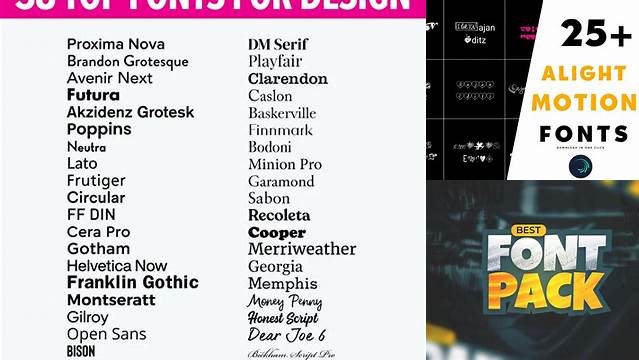
Best Fonts For Edits: Make Your Visuals Pop!
Choosing the right fonts to use for edits can dramatically elevate your creative projects, whether you're designing social media graphics, editing videos, or crafting stunning presentations. Selecting the perfect typeface is key to conveying the right message and capturing your audience's attention. Let's dive into the world of fonts and explore how to pick the best ones for your editing needs.
1. Understanding Font Psychology
Font psychology plays a crucial role in how your audience perceives your message. Different fonts evoke different emotions and associations. For example, serif fonts like Times New Roman often convey a sense of tradition, authority, and formality, making them suitable for serious or professional content. On the other hand, sans-serif fonts like Arial or Helvetica tend to appear modern, clean, and approachable, making them ideal for contemporary designs and digital platforms. Script fonts can add a touch of elegance and creativity, but they should be used sparingly to maintain readability. Decorative fonts are best reserved for headings and accents, as they can be overwhelming in large blocks of text. By understanding these psychological associations, you can strategically choose fonts to use for edits that align with your brand's personality and the overall tone of your project. Consider your target audience and the message you want to convey when making your font selections. Are you aiming for a professional, trustworthy feel? Or do you want to come across as playful and innovative? The right font choice can significantly impact how your message is received and remembered.
2. Serif Fonts for Edits
When it comes to fonts to use for edits, serif fonts bring a touch of classic elegance and readability, particularly in print and larger displays. These fonts, characterized by the small decorative strokes at the end of each letter, evoke a sense of tradition and authority. Think of Times New Roman or Garamond – they're timeless for a reason. For editing projects that require a professional and trustworthy feel, such as formal documents or sophisticated branding, serif fonts can be an excellent choice. Their inherent readability makes them ideal for longer text blocks, ensuring that your audience can easily digest your message. However, it's worth noting that serif fonts can sometimes appear cluttered on smaller screens or in digital environments, so consider using them judiciously in those contexts. Experiment with different serif fonts to find the one that best matches your project's aesthetic and target audience. Whether you're aiming for a classic, refined look or a more contemporary twist, there's a serif font out there that can help you achieve your vision. By understanding the nuances of serif fonts, you can confidently incorporate them into your editing workflow and create visually stunning and impactful designs.
3. Sans-Serif Fonts for Edits
For a modern and clean aesthetic, sans-serif fonts are often the go-to choice when considering fonts to use for edits. Unlike their serif counterparts, sans-serif fonts lack the small decorative strokes, resulting in a more minimalist and streamlined appearance. This makes them incredibly versatile and well-suited for a wide range of editing projects, especially those intended for digital platforms. Fonts like Arial, Helvetica, and Open Sans are popular choices due to their readability and contemporary feel. They work exceptionally well for website body text, app interfaces, and social media graphics, where clarity and visual appeal are paramount. Sans-serif fonts also tend to scale well, maintaining their legibility even at smaller sizes. This makes them ideal for responsive designs that need to adapt to various screen sizes. When selecting a sans-serif font for your edits, consider the overall tone and style you want to convey. A bolder sans-serif font can project confidence and strength, while a lighter weight can create a more delicate and airy feel. By carefully choosing the right sans-serif font, you can enhance the visual impact of your edits and ensure that your message is communicated effectively.
4. Script Fonts for Edits
If you're looking to add a touch of elegance and personality to your editing projects, script fonts can be a fantastic choice when considering fonts to use for edits. These fonts mimic the flowing strokes of handwriting, lending a unique and artistic flair to your designs. From formal calligraphy to playful brush scripts, there's a wide variety of script fonts to choose from, each with its own distinct character. However, it's important to use script fonts sparingly and strategically, as they can sometimes be difficult to read in large blocks of text. Reserve them for headings, logos, or short phrases where you want to make a statement. When selecting a script font, consider the overall tone and style of your project. A formal script font like Edwardian Script can be perfect for wedding invitations or elegant branding, while a more casual brush script can add a playful touch to social media graphics or blog headers. Always prioritize readability and ensure that your script font complements the other fonts and design elements in your project. By using script fonts thoughtfully, you can elevate your edits and create visually stunning and memorable designs.
5. Decorative Fonts for Edits
When you need to make a bold statement and grab attention, decorative fonts are your secret weapon when thinking about fonts to use for edits. These fonts are designed to be eye-catching and unique, often featuring unusual shapes, intricate details, or whimsical embellishments. While they're not typically suitable for body text due to their potential impact on readability, decorative fonts can be incredibly effective for headings, logos, and other design elements where you want to create a strong visual impact. Think of movie posters, event flyers, or branding materials that need to stand out from the crowd. When using decorative fonts, it's important to exercise restraint and ensure that they complement the overall design aesthetic. Too many decorative fonts can create a cluttered and overwhelming look. Instead, choose one or two decorative fonts that align with your brand's personality and use them strategically to highlight key messages. Experiment with different styles and combinations to find the perfect balance between visual appeal and readability. By mastering the art of using decorative fonts, you can add a touch of creativity and excitement to your edits, making them truly unforgettable.
6. Pairing Fonts Effectively
One of the key skills in design is pairing fonts effectively when considering fonts to use for edits. Combining different fonts can create visual interest and hierarchy, but it's important to do it thoughtfully. A good rule of thumb is to choose fonts that complement each other without being too similar. For example, pairing a serif font for headings with a sans-serif font for body text can create a balanced and readable design. Avoid using two fonts that are too similar, as this can create a sense of visual dissonance. Instead, look for fonts that have contrasting characteristics, such as different weights, styles, or x-heights. When pairing fonts, consider the overall tone and style of your project. A formal design might call for a classic serif and a clean sans-serif, while a more playful design could incorporate a script font or a decorative font. Experiment with different combinations and trust your eye. There are also many online resources and font pairing tools that can help you find harmonious font combinations. By mastering the art of font pairing, you can elevate your edits and create visually stunning and professional designs.
7. Font Size and Readability
Font size and readability are critical factors when considering fonts to use for edits. No matter how beautiful a font is, if it's not easily readable, it won't be effective in conveying your message. When choosing a font size, consider the context in which it will be used. For body text, a font size of 12-14 points is generally recommended for print, while a slightly larger size may be necessary for digital screens. Headings should be larger than body text to create a clear visual hierarchy. Pay attention to the x-height of the font, which is the height of the lowercase letters. Fonts with a larger x-height tend to be more readable at smaller sizes. Also, consider the line height, which is the vertical space between lines of text. Adequate line height can improve readability by preventing the letters from feeling cramped. Test your font choices on different devices and screen sizes to ensure that they remain legible. Ask for feedback from others to get a fresh perspective on readability. By prioritizing font size and readability, you can ensure that your message is easily understood and that your edits are visually appealing and accessible to a wide audience.
8. Kerning and Tracking Adjustments
Kerning and tracking adjustments are subtle but powerful techniques for fine-tuning the appearance of your fonts to use for edits. Kerning refers to the spacing between individual letters, while tracking refers to the overall spacing between all letters in a word or block of text. By adjusting these settings, you can improve the readability and visual appeal of your typography. In some cases, the default kerning and tracking settings of a font may not be optimal, leading to uneven spacing or a cramped appearance. To fix this, use the kerning and tracking tools in your design software to manually adjust the spacing. Pay close attention to the spacing between letters that are close together, such as